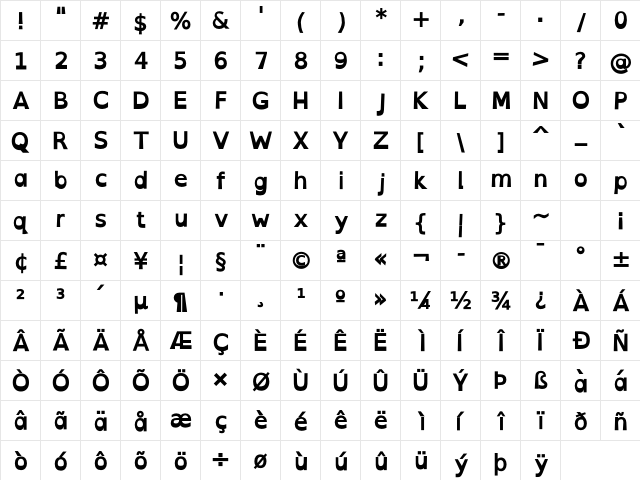
OpenDyslexicAlta Bold
| Designer | Abelardo Gonzalez |
Design Context for OpenDyslexicAlta Typeface
OpenDyslexicAlta takes a measured approach to typography — its balanced proportions and neutral character make it a reliable workhorse for both digital and print work. The heavy weight commands attention and anchors typographic hierarchies.